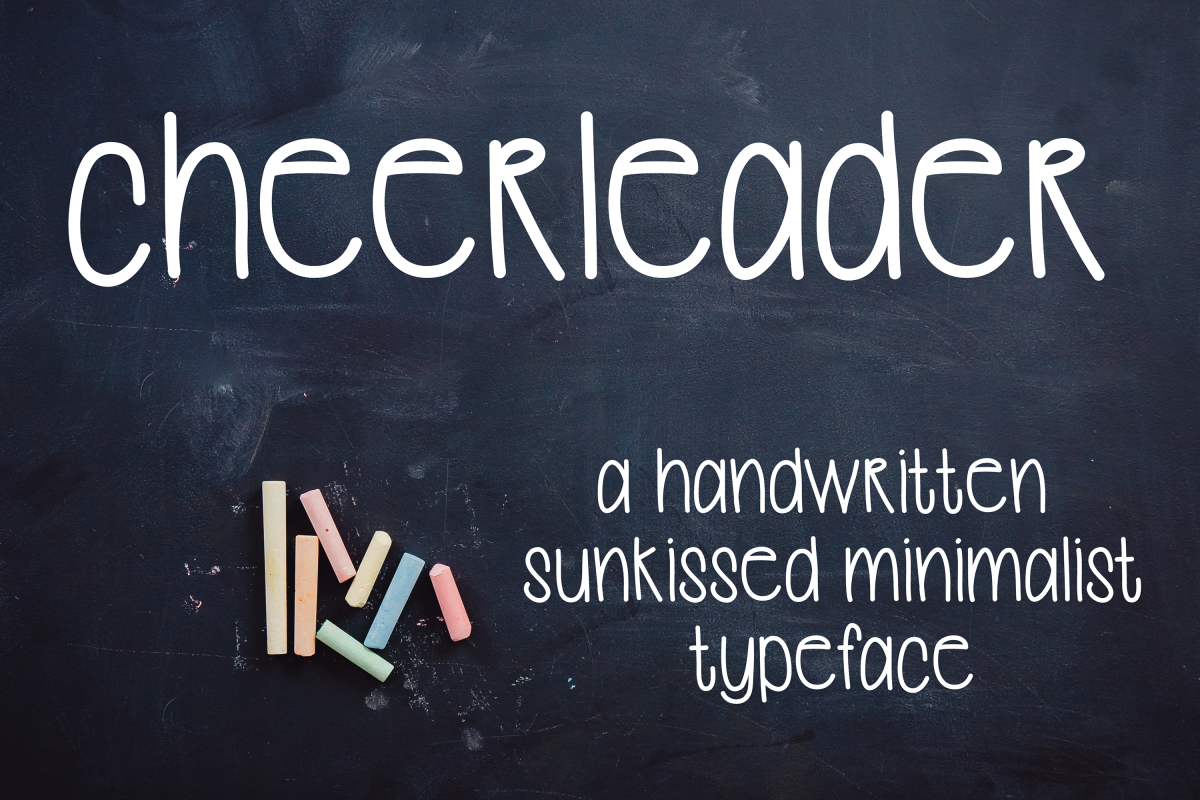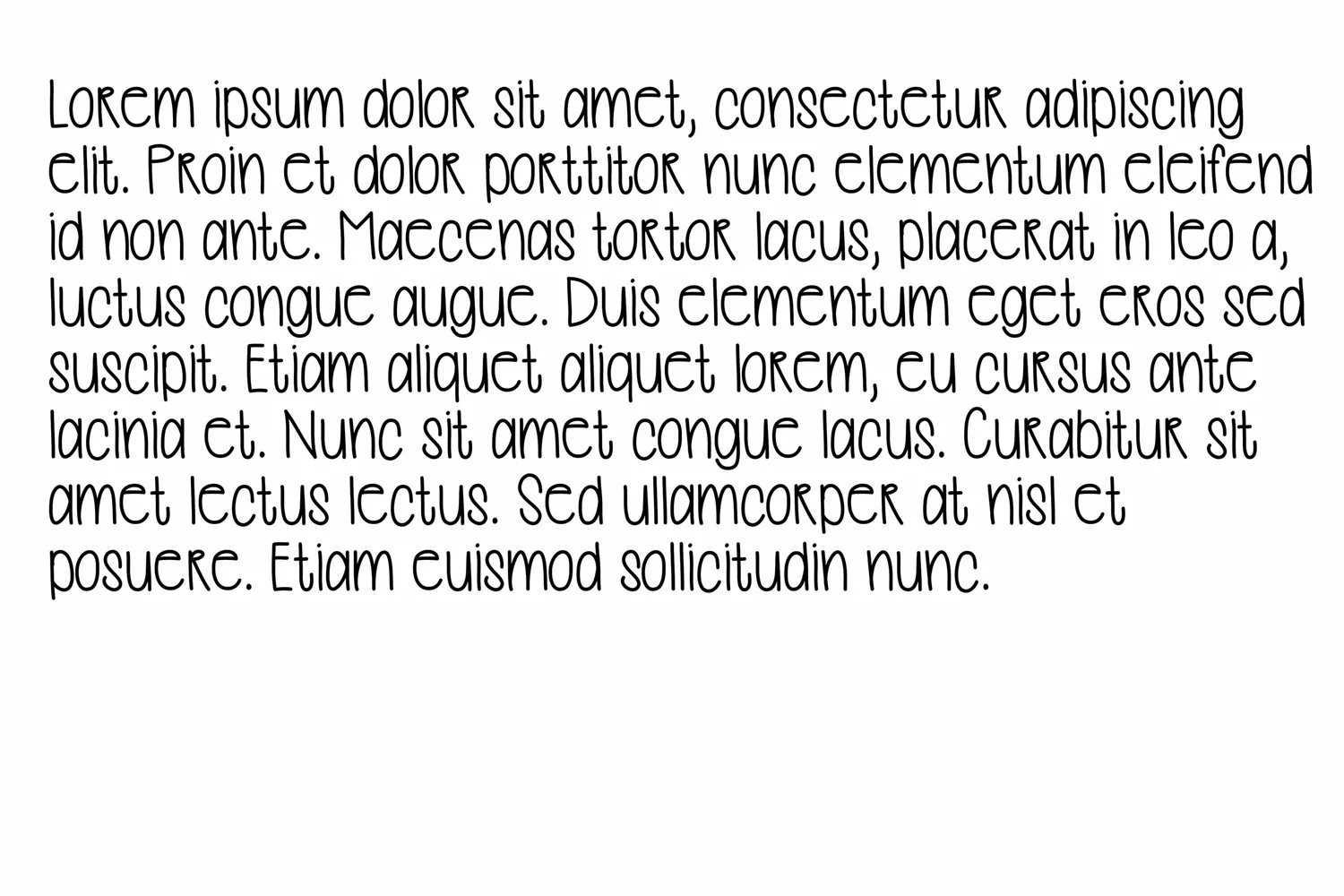
Cheerleader is a handwritten, whimsical font reminiscent of high school days gone Cheerleader features a full upper and lower case set of letters and special characters.